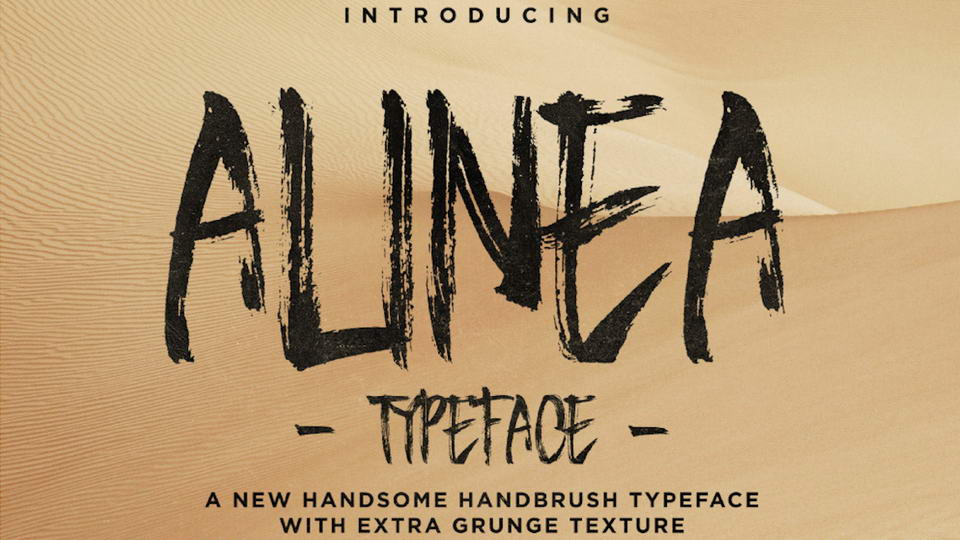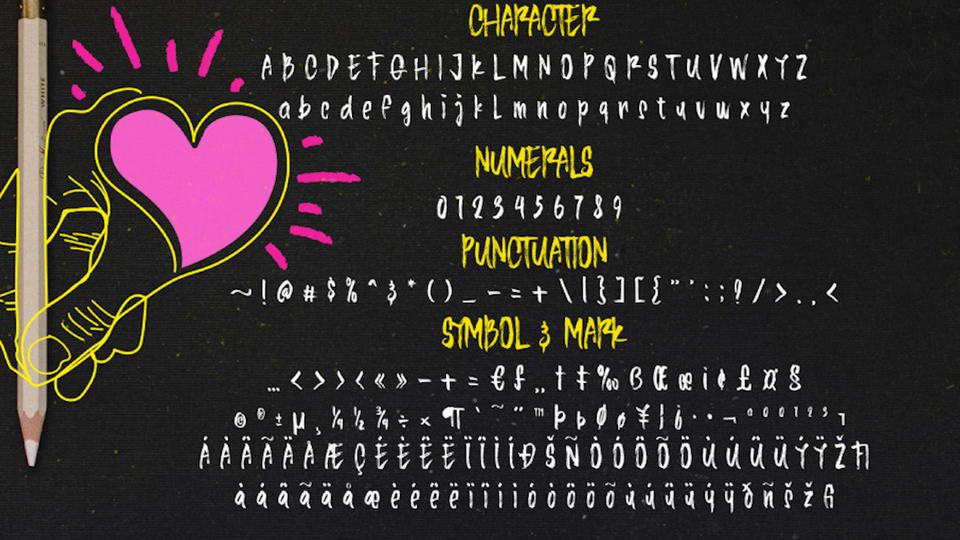
Alinea a free handbrush maker font featuring choppy brush strokes. Alinea has 250 glyphs, including characters, numerals, punctuation, marks & symbols. It works perfectly for all uppercase titles & headlines, or as smaller body text with a mix of upper & lower case. Alinea typeface is good for any design project such as posters, displays, business cards, signs, paintings, posters, or anything with a wild, adventurous theme.